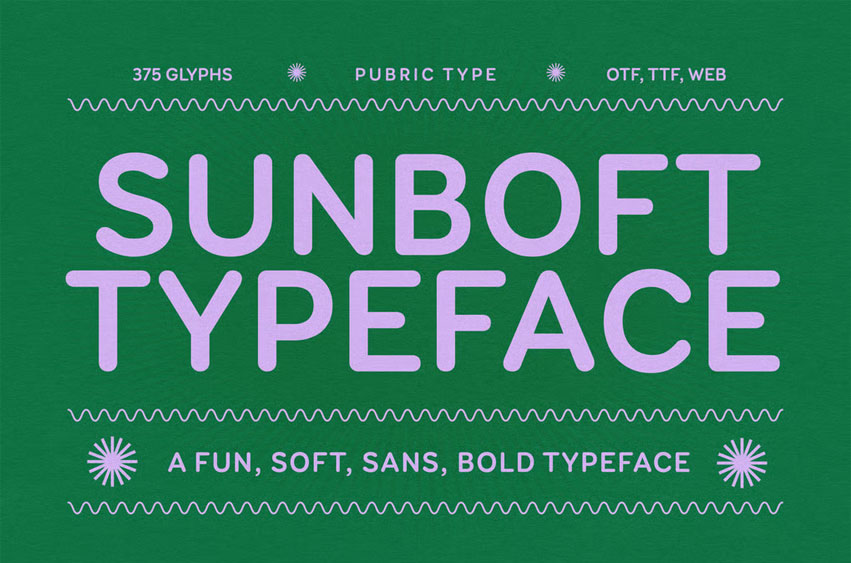
Sunboft Typeface Font
Sunboft Typeface Font is a bold sans-serif font with rounded corners and a smooth, playful character.
Its balanced proportions make it perfect for posters, branding, packaging, and various creative design projects.
Ideal for headlines, logos, editorials, packaging, quotes, films, games, album covers, books, and promotional materials. This font ensures your design stands out in any setting.